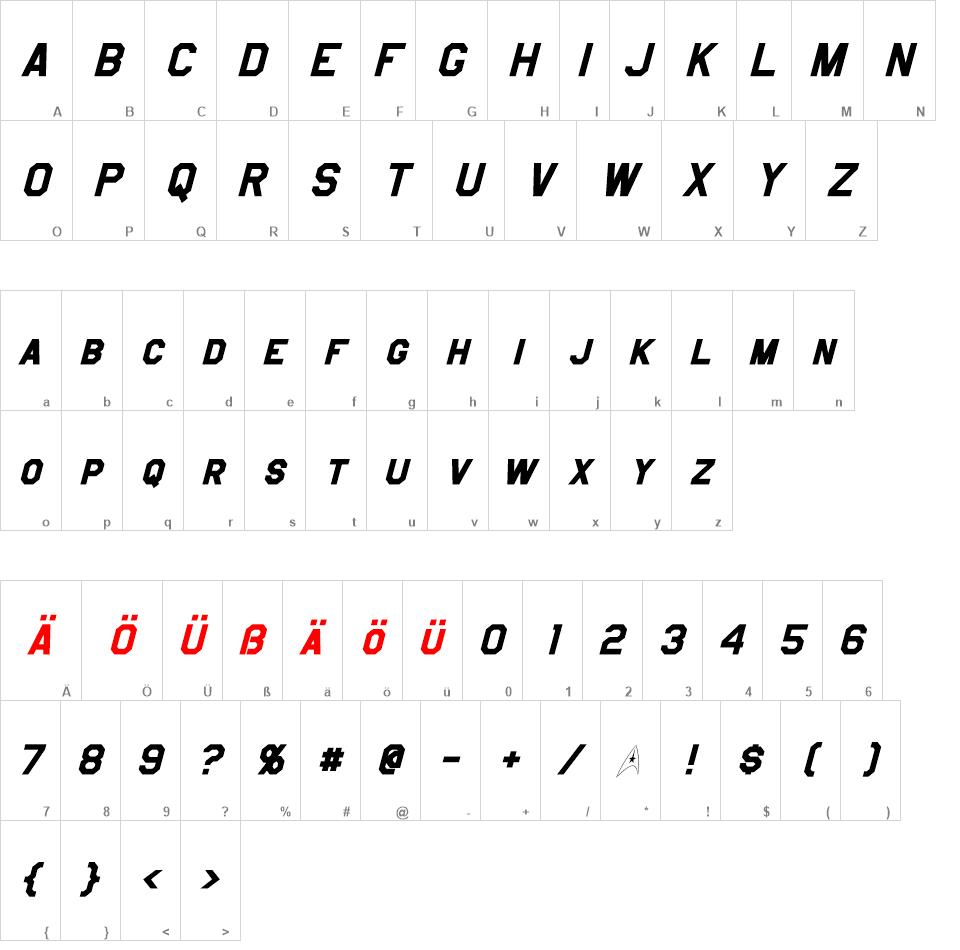
Jefferies
Jefferies (Updated)
Jefferies is based on the military-style stencils used on the ships from the classic Star Trek television series. Perfect for stenciling naval vessels and aircraft. Named after Walter "Matt" Jefferies, the designer of the USS Enterprise starship. Includes lower case, bold, italic, and bold-italic weights.
* Accurized lower case into military-proper small case
* Reworked all accents to military standards
* Reworked some letters to be more clear
* Added Polish characters